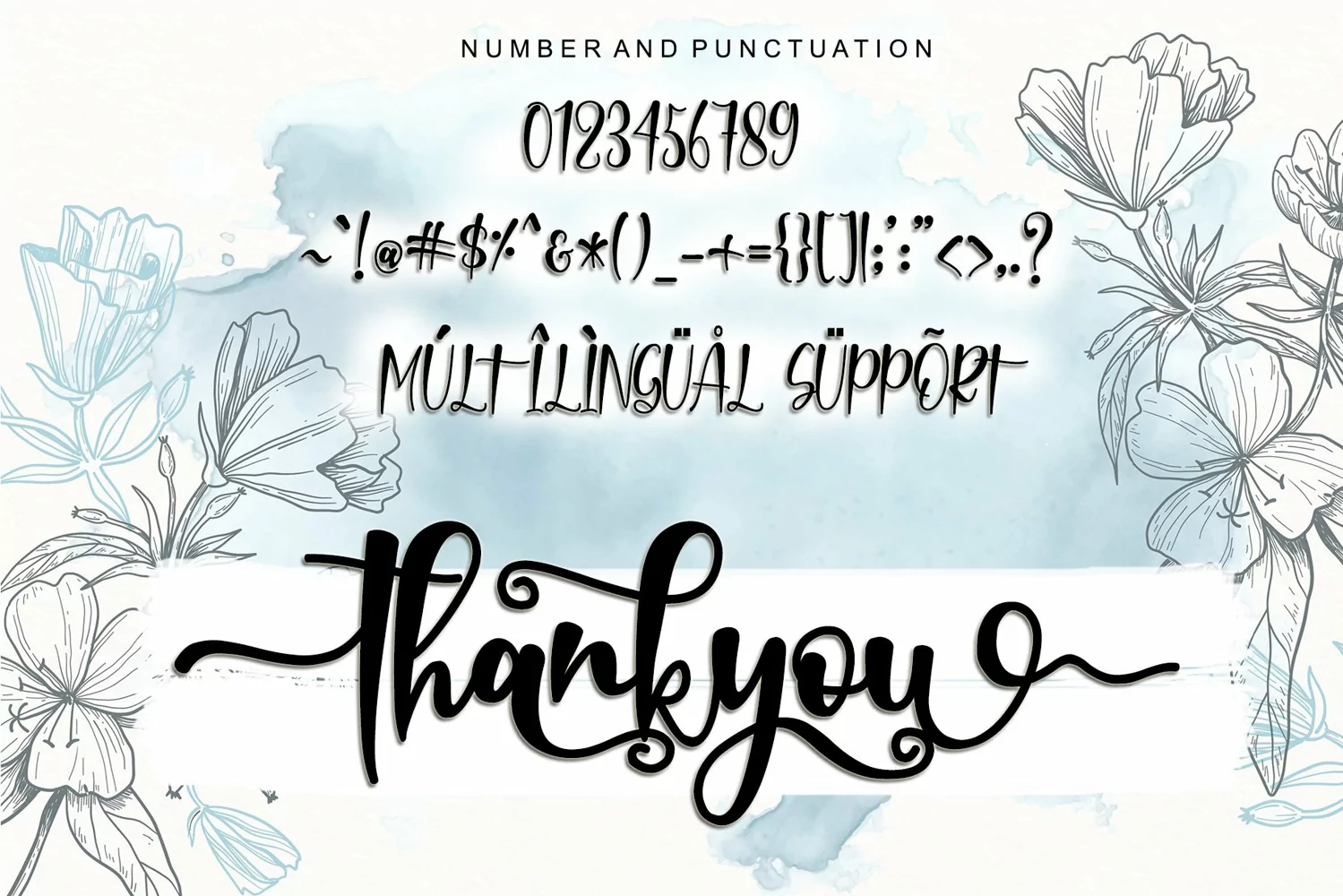
Rabitta - Modern Calligraphy
RABITTA
Rabitta Font is a modern calligraphy font by Letterafa Studio. It has flowing letters that will give your designs a unique and sweet look with many cute caracters. Rabitta font is perfect; logos, greeting cards, a package design, a brand identity, craft design, any DIY project, book title, wedding invitation, packaging, and more.
- Basic Uppercase and Lowercase
- Uppercase Alternate (A-Z)
- Lowercase Alternate (a-z) and Swash (a-z)
- Ligature
- Titling